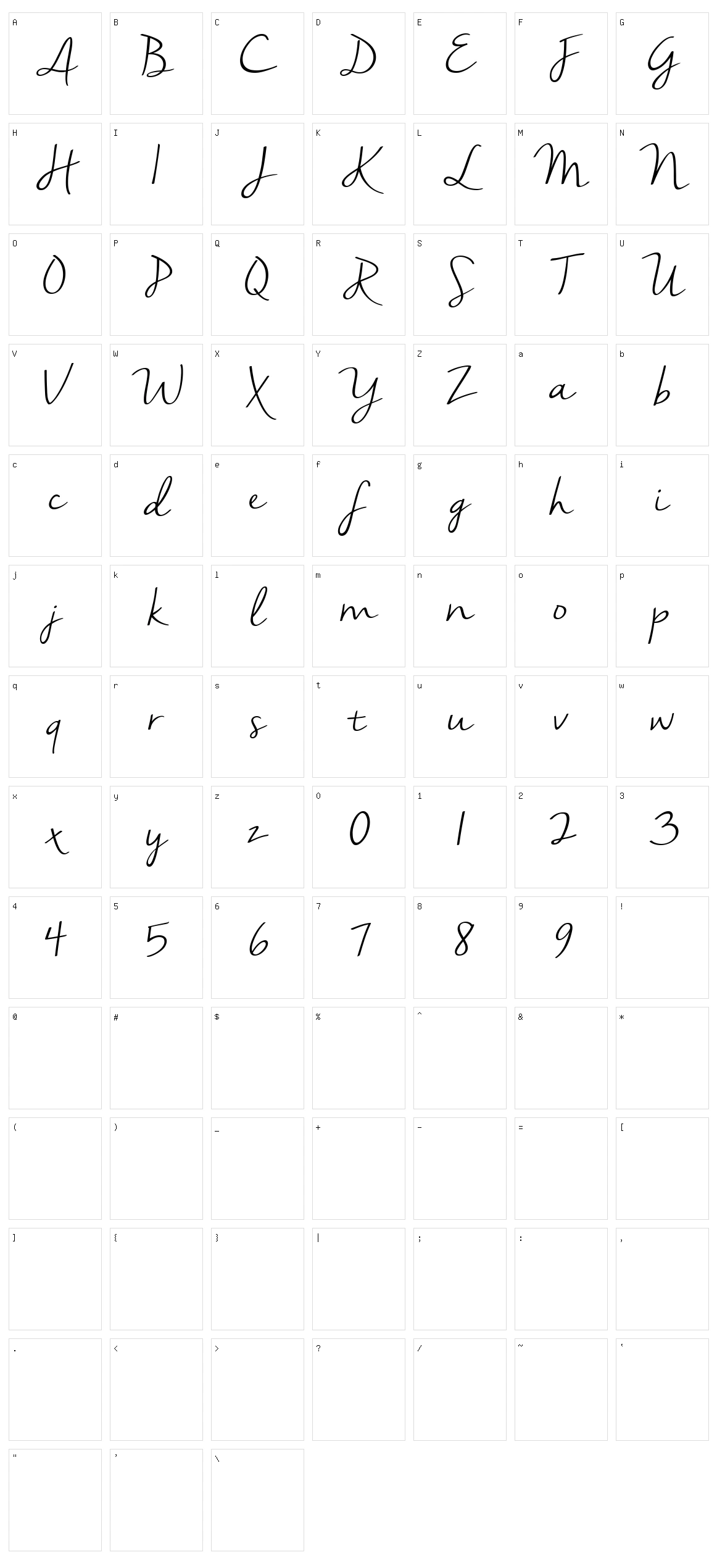
The free font Nella Sue is carefully designed by jennasuedesignco, showcasing a thoughtful balance of creativity and usability and falls under the Script font style. When you download the ZIP file, it contains only 37.63 KB of font files, making it lightweight and quick to download. Please review the license details below to understand permitted usage and distribution rights. If license information is not available, we recommend using this font for personal projects only or contacting the author directly for commercial usage permissions.